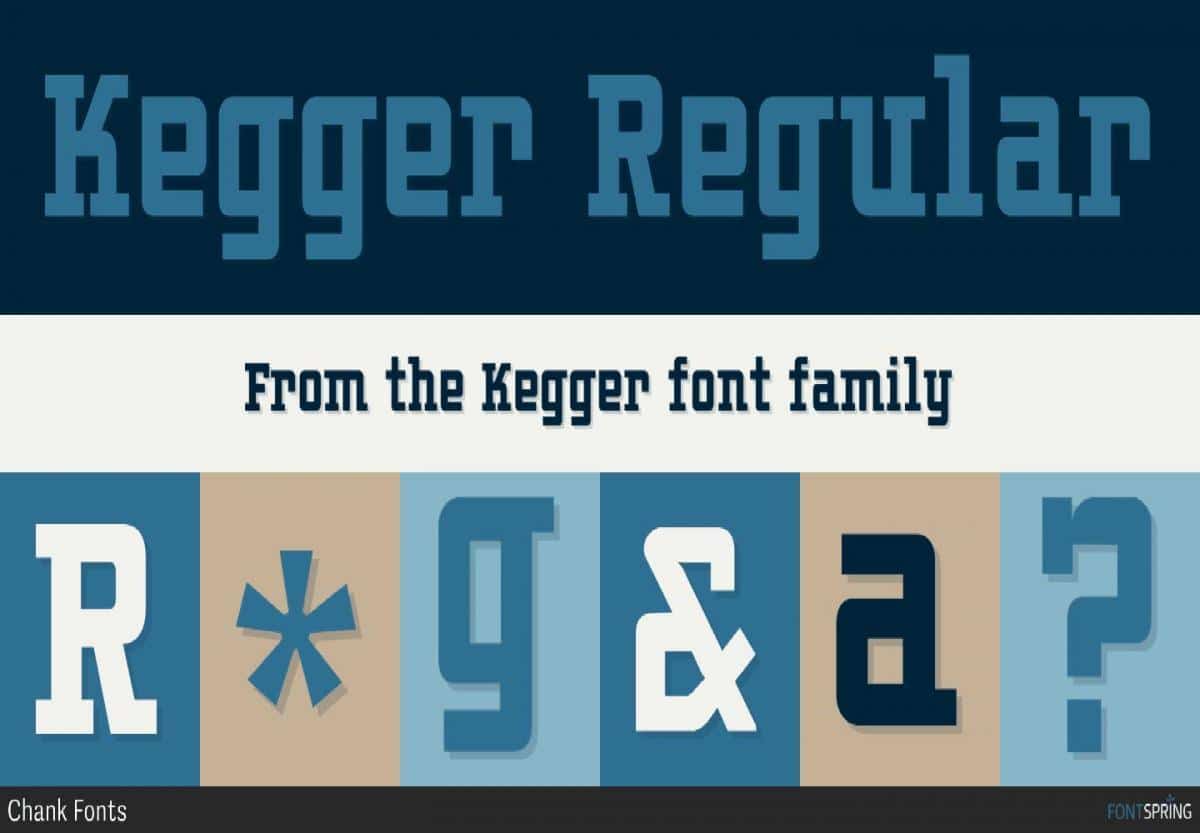
Show you school spirit with this sporty, collegiate font. These big chunky serifs let the world know you speak with authority, and they’ll read your message clear as a bell. It’s like a traditional college font, but it’s got a chanky flair.
Good for hockey jerseys and house parties.